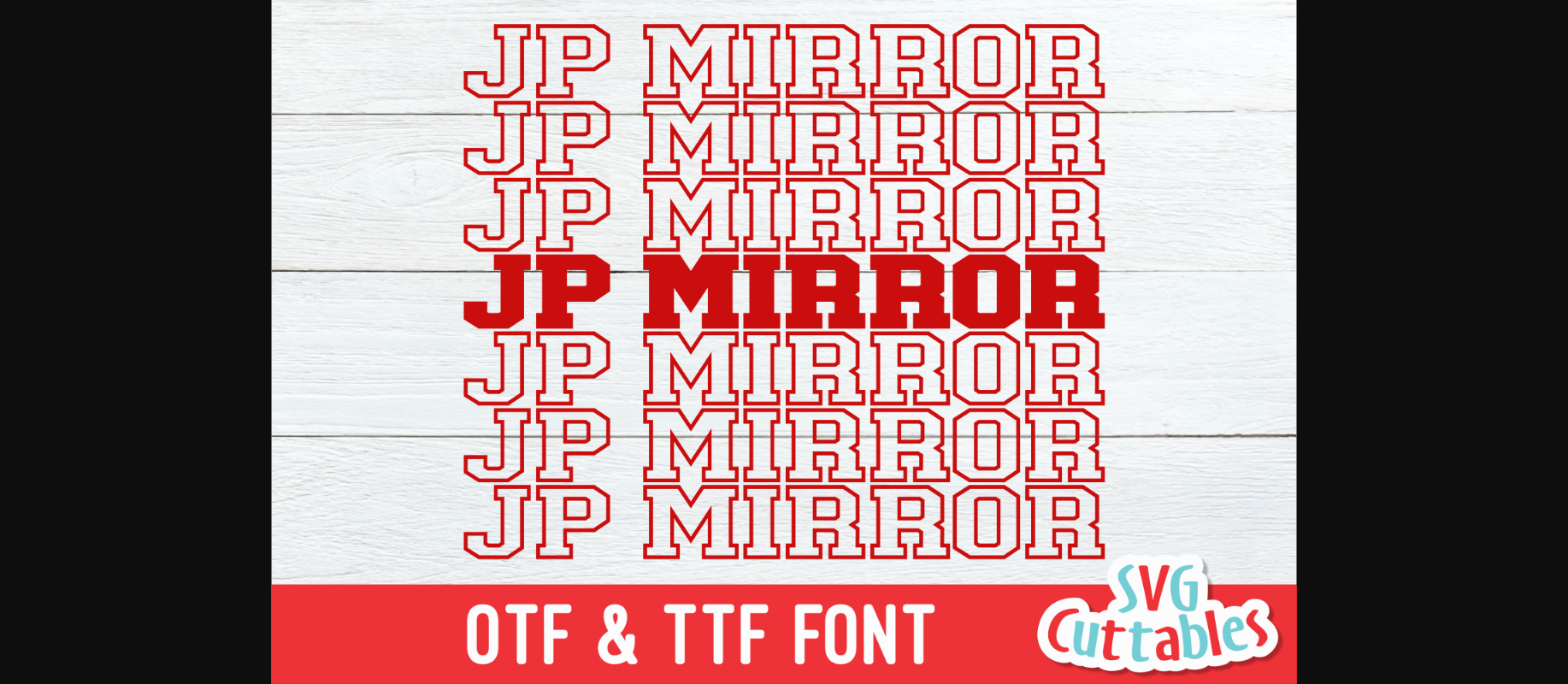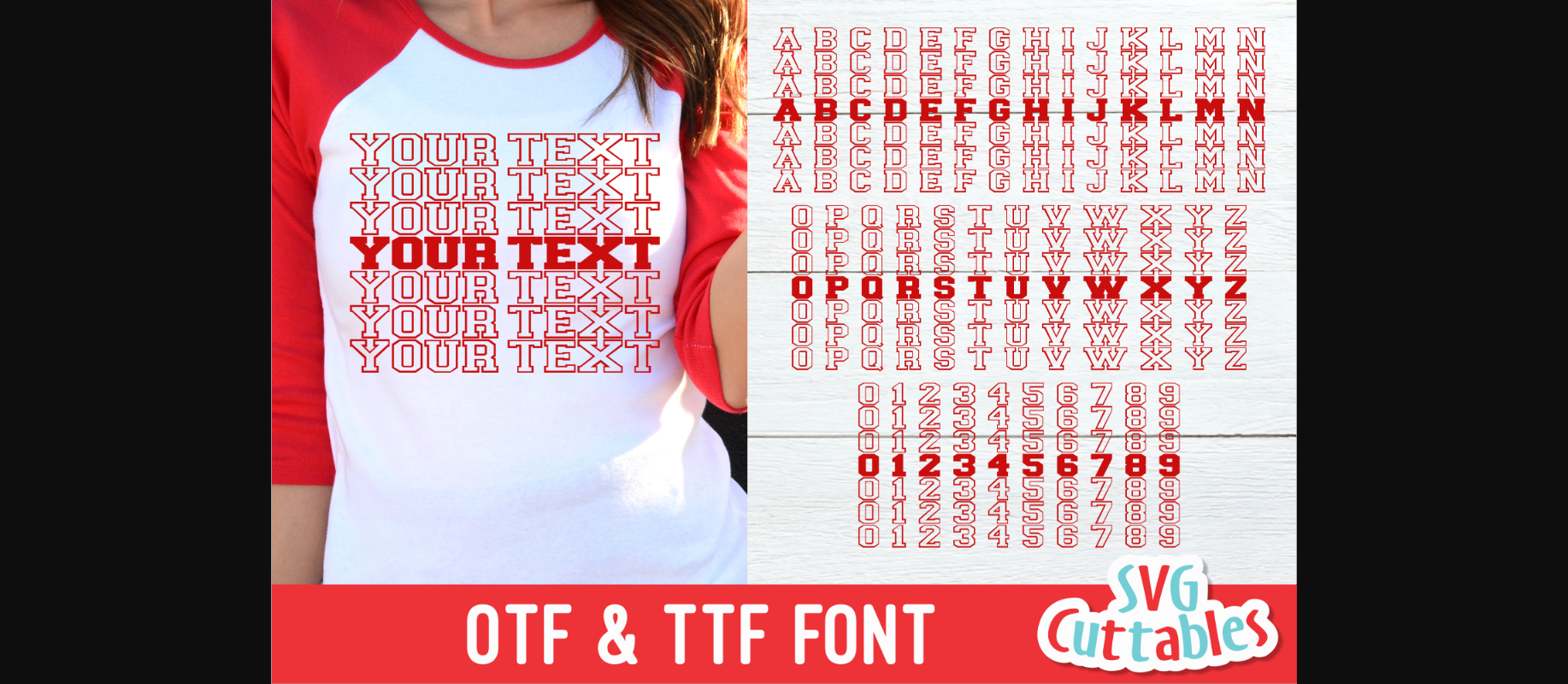
JP Mirror Font
About JP Mirror Font
JP Mirror is an interesting decorative font made for creative minds and crafty projects! It looks amazing on product packaging, short text, banners, and other similar designs.